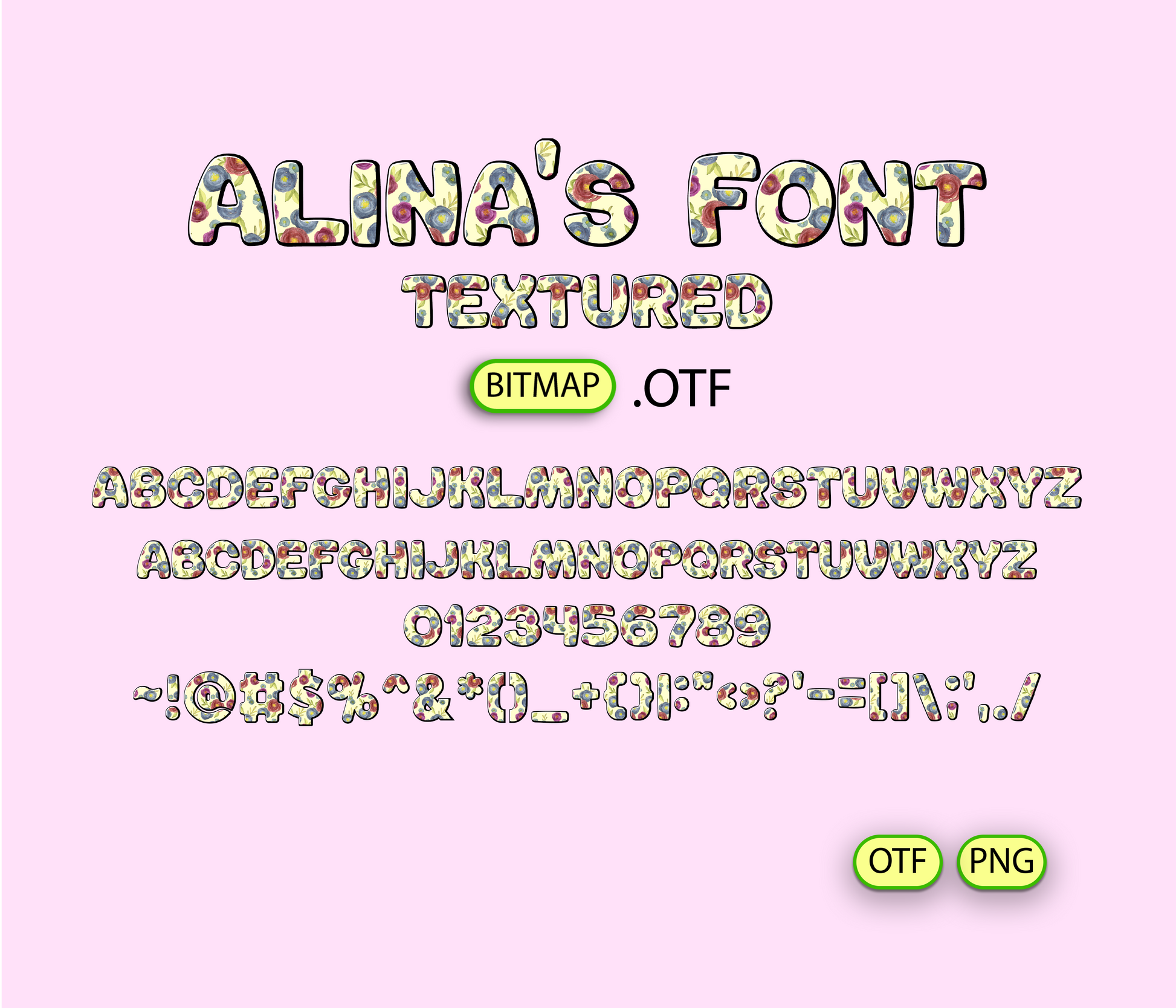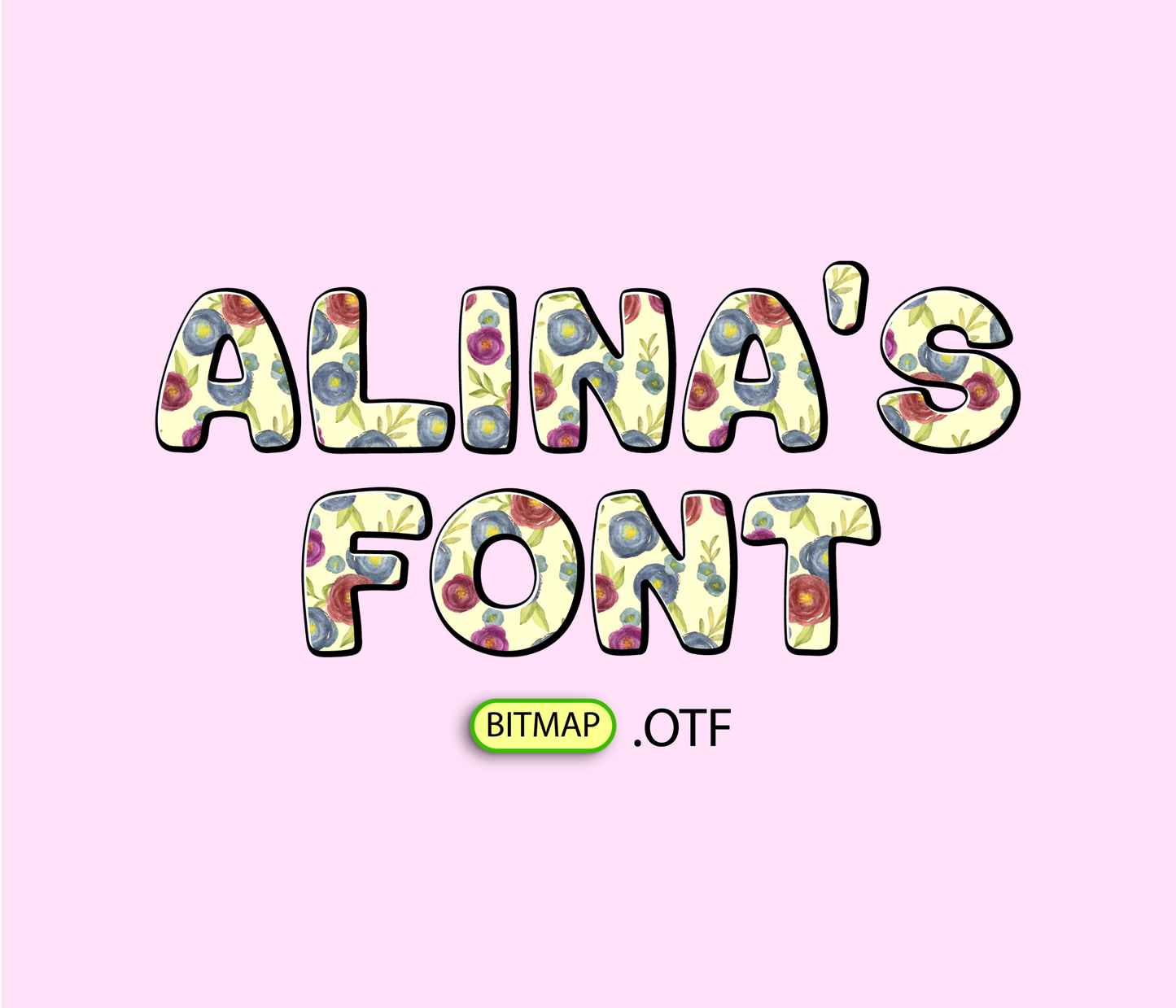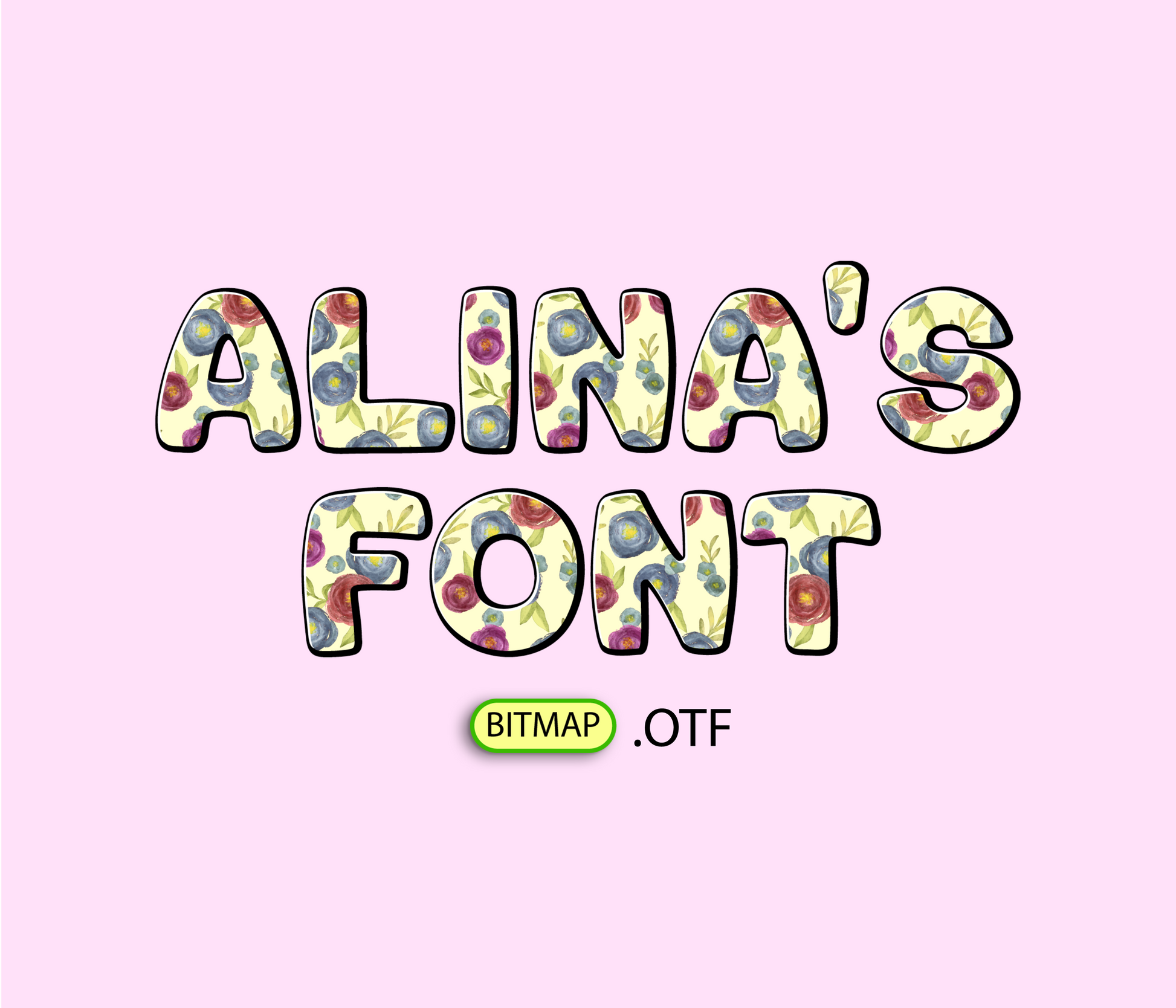
Watercolor Flowers Pattern Font
Botanical Watercolor Pattern Font
Step into the delicate world of artistic florals with our Botanical Watercolor font, capturing the essence of hand-painted blooms and gentle brushstrokes. Perfect for wedding designers, stationery creators, botanical brands, and creative professionals, this font brings the soft, romantic spirit of watercolor artistry to your projects. Create elegant invitations, nature-inspired merchandise, or digital content with the flowing, translucent beauty of watercolor floral illustrations.
Our Botanical Watercolor font features flowing, organic shapes and petal-inspired characters reflecting the gentle beauty and artistic quality of hand-painted florals. Ideal for:
Our font pays tribute to the timeless artistry of watercolor florals, empowering your designs with its gentle and elegant spirit. Whether crafting wedding materials, designing nature-inspired merchandise, or adding an artistic touch to personal projects, this font communicates the flowing beauty and delicate charm of botanical art. Ready to inject watercolor elegance into your creations? This font is your key to artistic, impactful design.